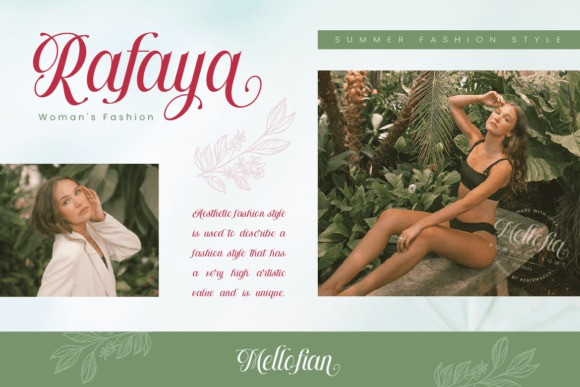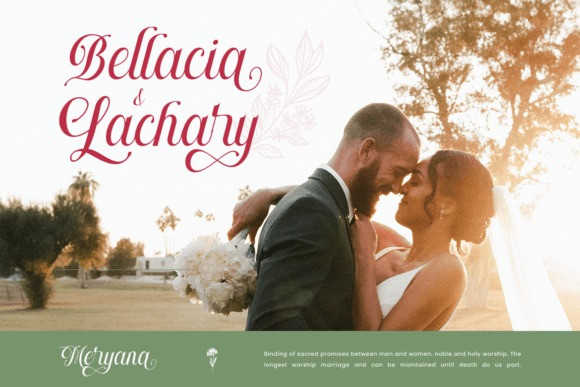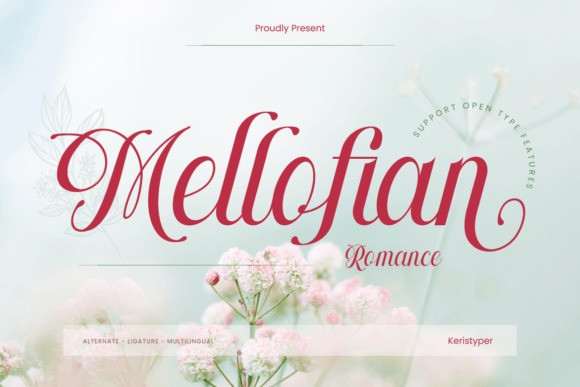
Mellofian Font
Mellofian Font is a romantic script font Inspired by drama and love stories. This elegant font is good for logo design, social media, movie titles, book titles, short text even long text letters.